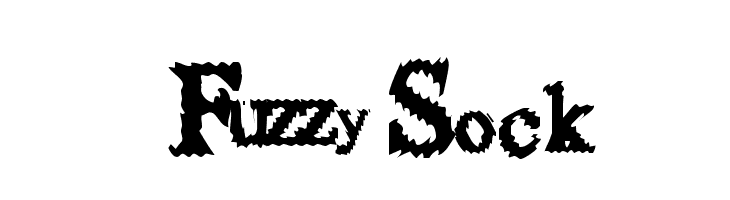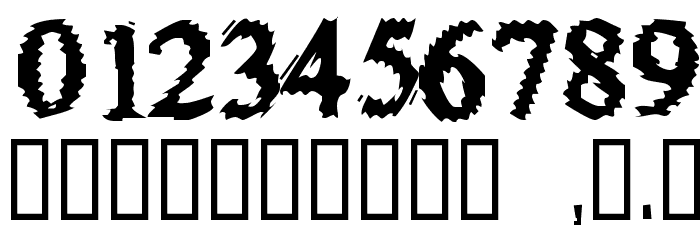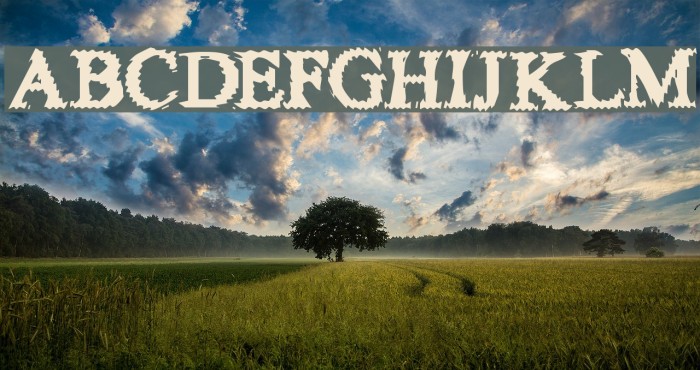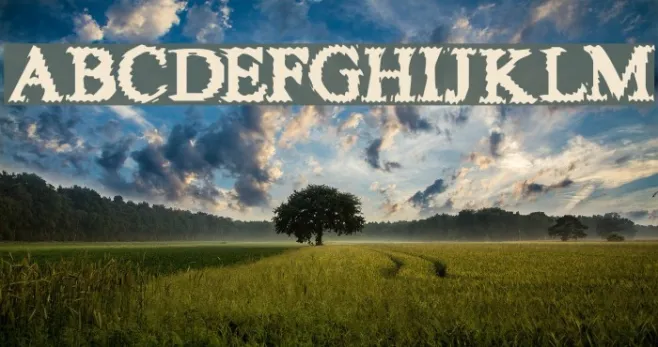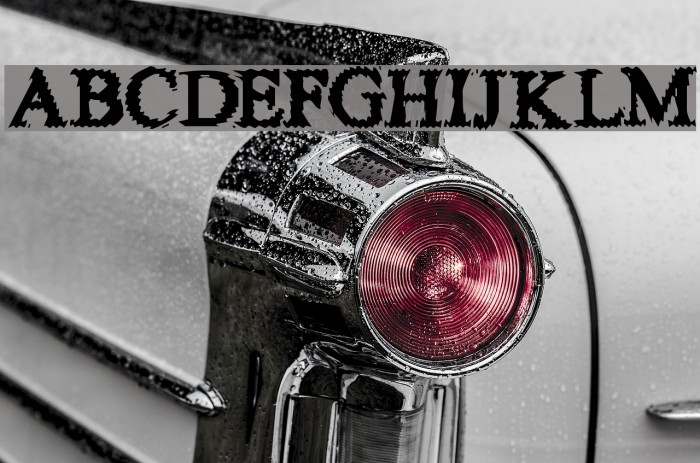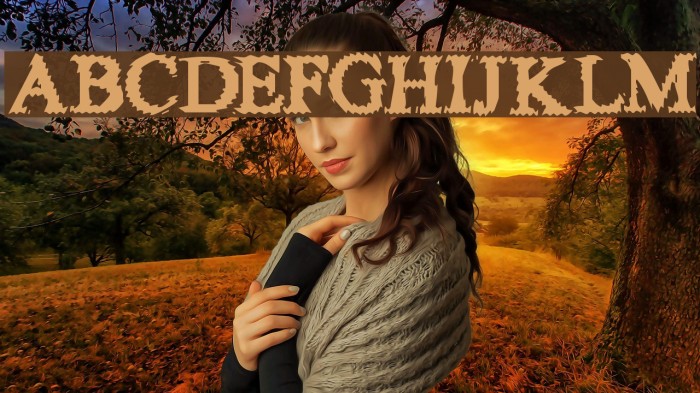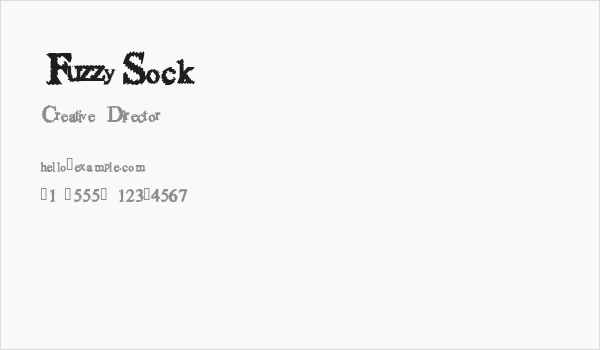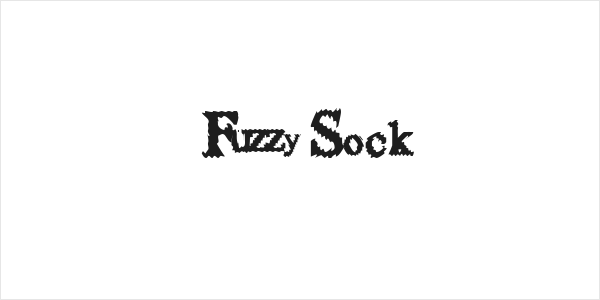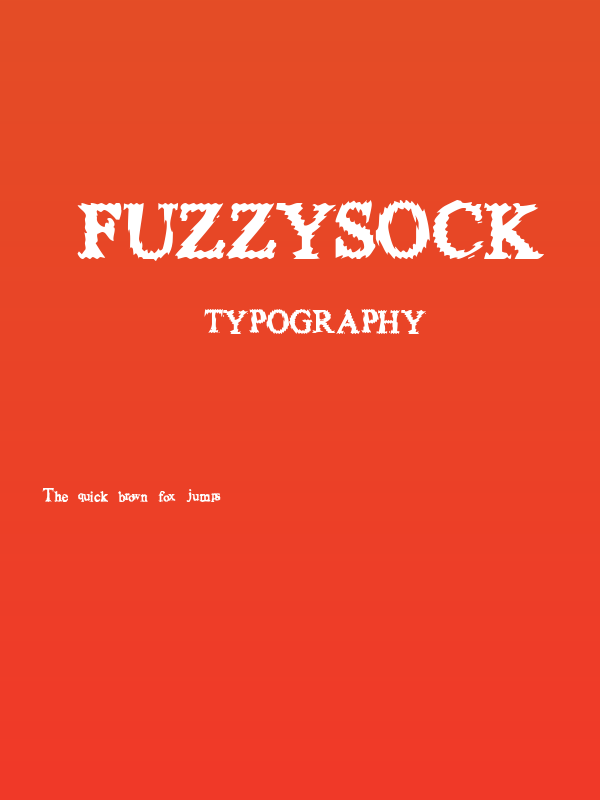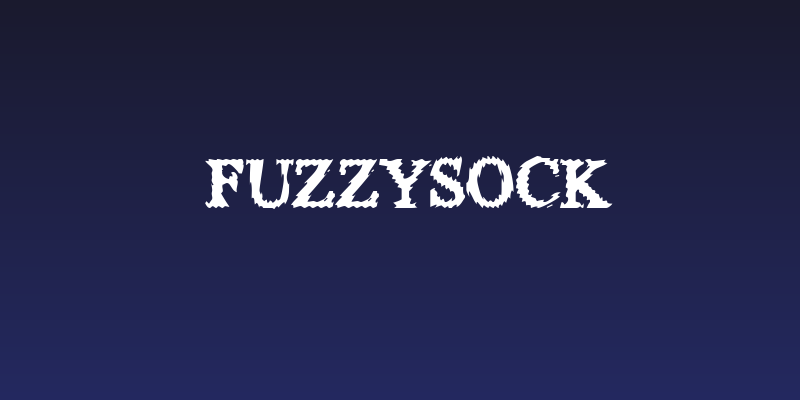
FuzzySock Font
FuzzySock Description
This font features a unique and playful design with a fuzzy, jagged edge effect that gives it a dynamic and energetic appearance. The uppercase and lowercase letters maintain a consistent style, with each character appearing as if it's vibrating or in motion. The numbers and special characters follow the same design, ensuring a cohesive look across all elements. The font's bold and striking appearance makes it ideal for attention-grabbing headlines or creative projects where a sense of movement and excitement is desired.
Proposed ProjectsIdeal for posters, music album covers, event flyers, and any creative project needing a bold, dynamic look.